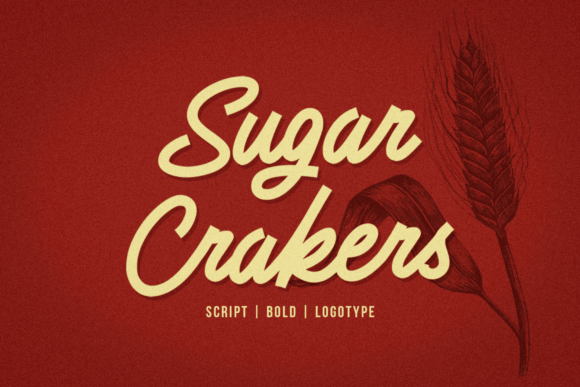
Step into a world of exquisite typography with Sugar Crackers Font, the ultimate script typeface that captures the essence of boldness and creativity. Unleash your imagination and transform your designs into captivating masterpieces that resonate with elegance and authenticity.
Indulge in the distinctive charm of Sugar Crackers, a font that embodies the beauty of handwritten signatures. Its dynamic strokes and unique letterforms exude a sense of sophistication, making it the perfect choice for creating logos, product labels, headlines, and other design elements that demand attention.
Elevate your designs to new heights with Sugar Crackers. Its versatility knows no bounds, allowing you to effortlessly create designs that stand out from the crowd. Whether you're working on branding, marketing materials, or personal projects, Sugar Crackers is the font that will bring your vision to life.
Experience the joy of creating designs that exude confidence and authenticity with Sugar Crackers. Its bold and eye-catching style commands attention, making it an ideal choice for designers looking to leave a lasting impression.
Don't miss out on the opportunity to elevate your designs with Sugar Crackers Font. Embrace the power of typography and watch as your creations come to life, captivating audiences and leaving an unforgettable impact.
Unlock the full potential of your creativity with Sugar Crackers Font today!